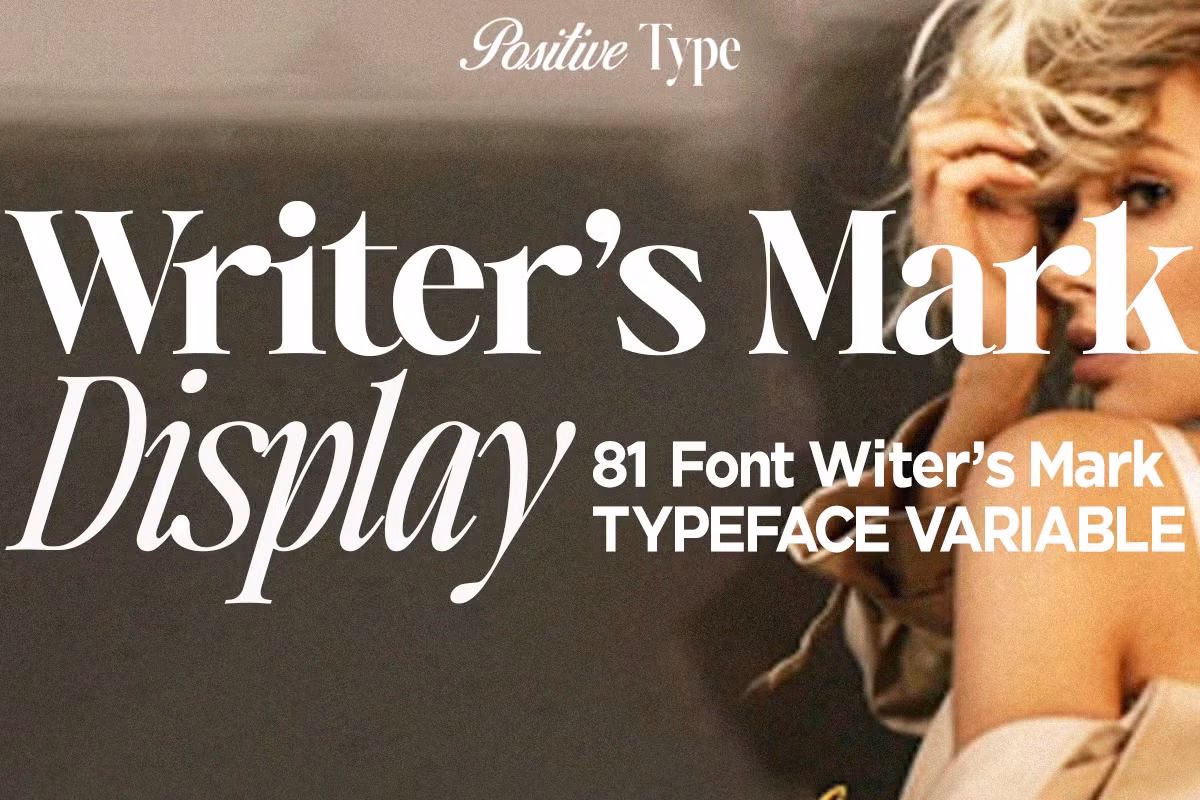
Writer’s Mark Display Font Free Download is a bold and expressive typeface designed to make a lasting impression with every word. Please note: you must purchase this font for commercial use, but you can test it through a free download. Inspired by editorial headlines, handwritten flair, and vintage book covers, Writer’s Mark is perfect for posters, branding, quote graphics, packaging, and creative publishing projects.
With its unique letterforms and handcrafted character, this display font adds depth and personality to your typography. Whether you're designing for a writer’s brand, a literary zine, or a storytelling-focused campaign, Writer’s Mark Display Font Free Download delivers striking visual impact with a personal touch. Fully compatible with Adobe Illustrator, Photoshop, Canva, and other design platforms, it’s ready to bring creativity to your next project. Download it today for personal use and leave your mark with the distinctive style of Writer’s Mark.